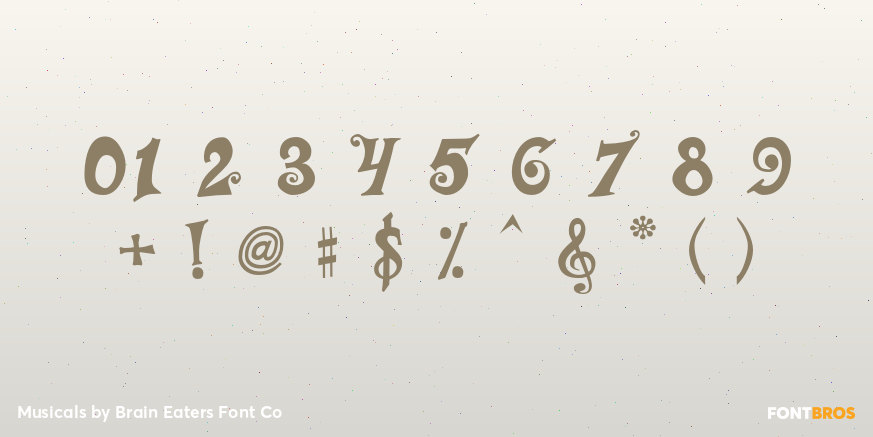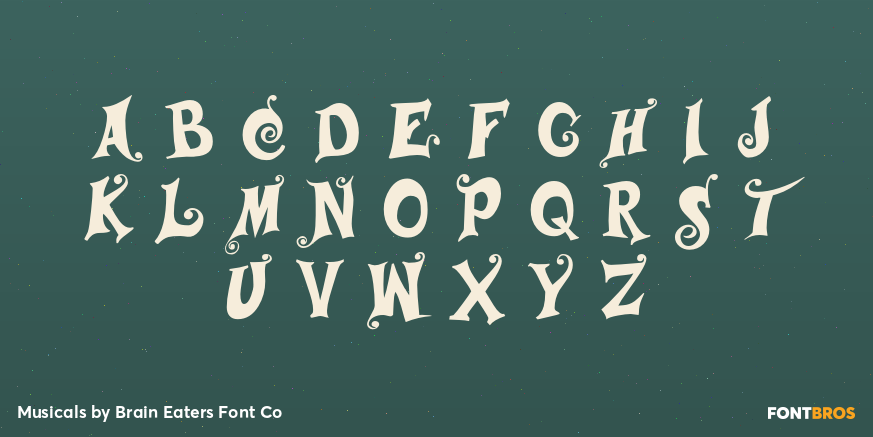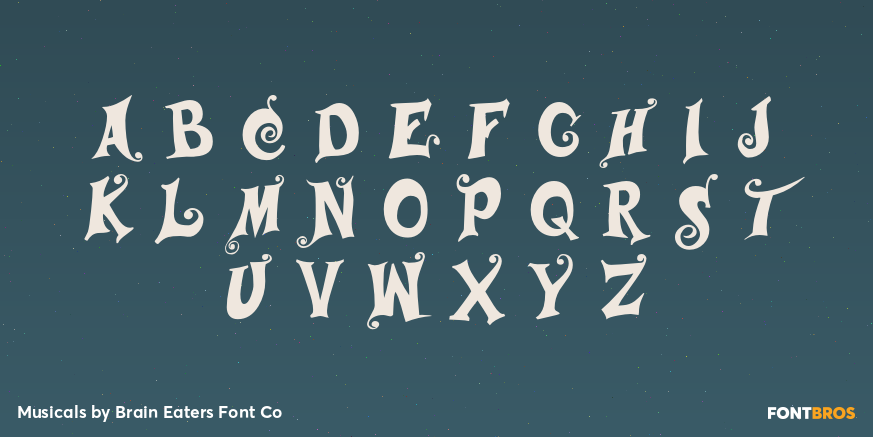
Musicals
Font Family by Brain Eaters Font Co
Bring your designs to life with Musicals, a playful and decorative display typeface from Brain Eaters Font Co. Its bold, curly letterforms have a fun, whimsical energy that feels like a showstopper on the page, with swirly details that catch the eye and add personality. Perfect for posters, event branding, kids’ projects, party invites, titles, and anything that needs a lively, expressive vibe. It’s a single-style family with a distinctive look that makes headlines pop and designs feel joyful.